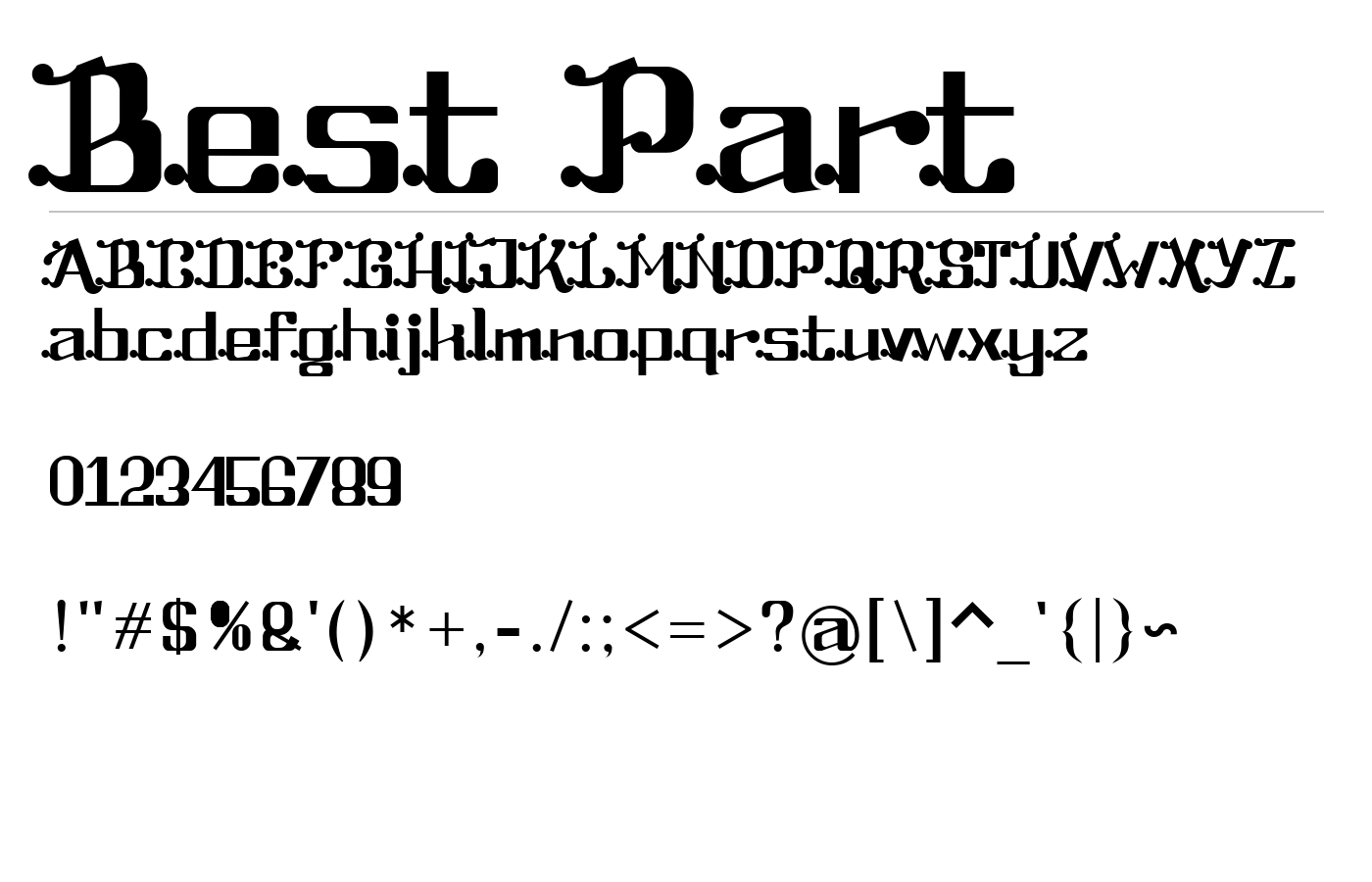
Best Part Font is a bold slab serif typeface with distinctive rounded terminals and subtle flourishes that give it a vintage, playful character. Its sturdy, geometric letterforms combined with unique decorative dots create a strong yet approachable personality, making it ideal for eye-catching headlines, logos, and packaging that seek a blend of tradition and charm. This font works well in creative branding and editorial designs where a mix of boldness and whimsy is desired.
Best Part Font
About Best Part Font
| Font family | Best Part Font |
| Designer | Indra Gunawan |